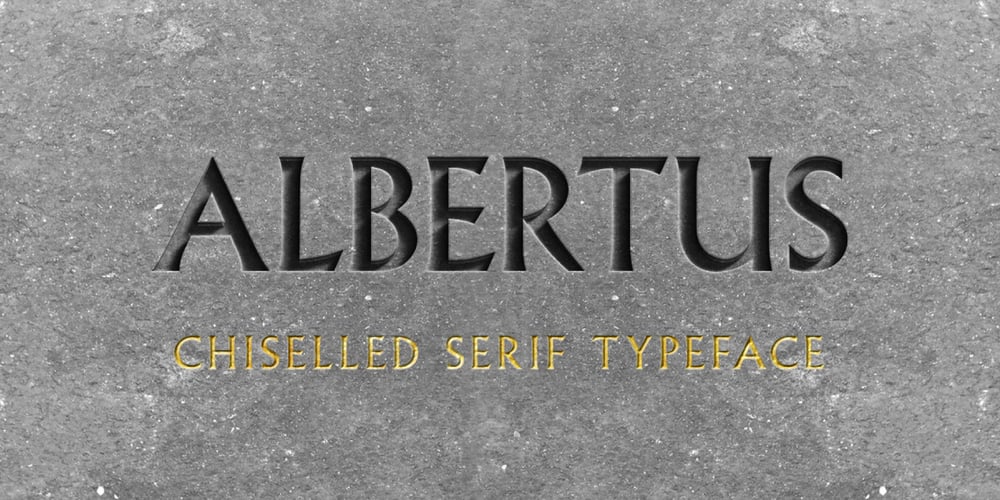
Albertus Font Family was designed by Berthold Wolpe and published by Monotype. Albertus contains 3 styles and family package options. Berthold Wolpe’s innovative design undertaken for Monotype in 1932 suggests the texture of letters cut in wood. Albertus can be seen as Morison’s improvement of Othello, Monotype’s 1928 copy of Neuland, executed by Pierpont.